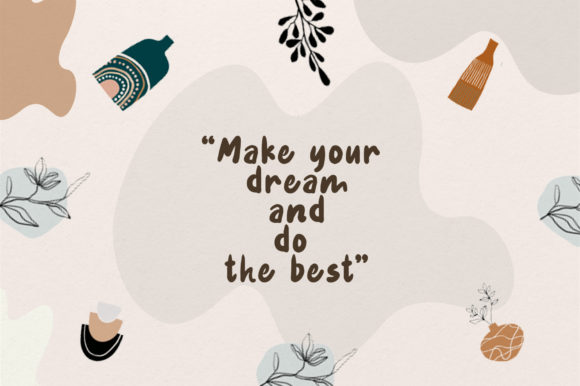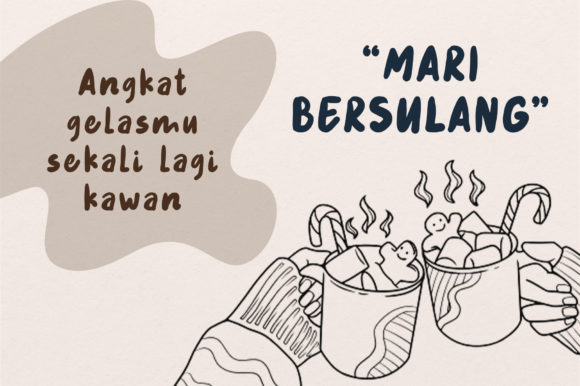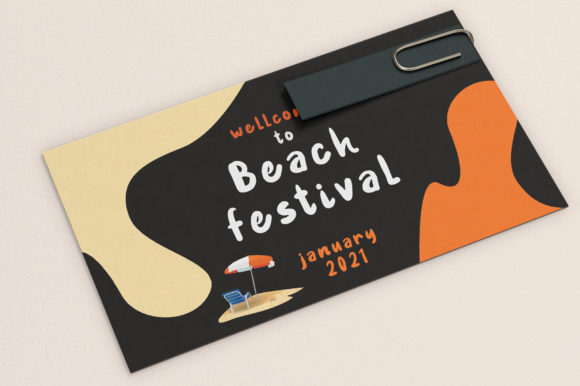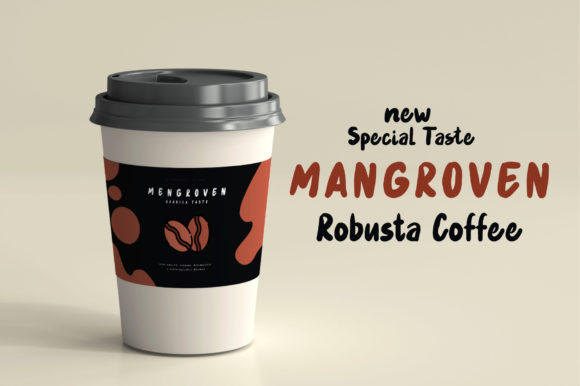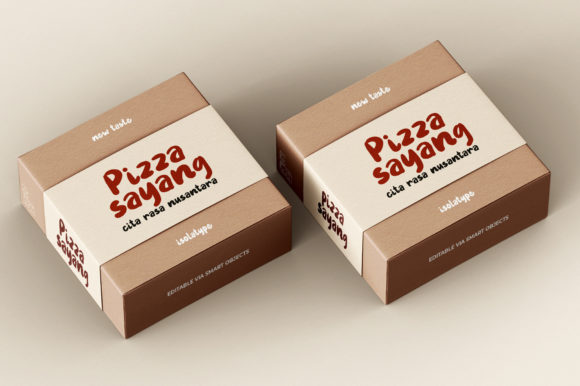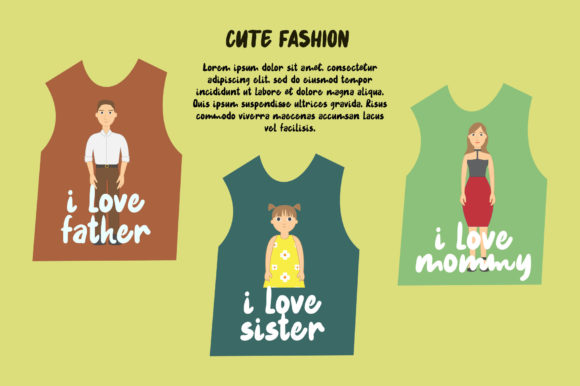
Introduction to Rampung Font
Have you ever been rummaging through a dusty old chalkboard in a quaint schoolhouse, feeling inspired by the scribbled quotes and diagrams that bring back memories of a bygone era? That’s exactly the kind of feeling the Rampung Font aims to evoke in your designs. This charming, handwritten font is the perfect addition to any creative project, especially when paired with a transparent background to make it pop.
Key Features of Rampung Font
- Rampung Font is a high-quality design resource suitable for creative projects, offering a unique and modern aesthetic.
- The font size is 1,048 glyphs, covering a wide range of languages and characters.
- One of the unique characteristics of Rampung Font is its versatility, making it an excellent choice for various design projects, from logos to branding materials.
- This font family consists of multiple styles, including bold, italic, and regular, providing designers with ample options to suit their creative needs.
Honest Review: Rampung Font
I recently had the chance to experiment with the Rampung Font, and I must say it’s been a delight. This free download is a fantastic addition to any designer’s toolkit, offering a unique and modern aesthetic that’s perfect for creative projects.
- ✨ High-quality design: The Rampung Font boasts crisp, clean lines and a beautiful, modern feel that’s perfect for showcasing your work.
- ✨ Transparent background: The font’s transparent background makes it incredibly versatile, allowing you to easily integrate it into your designs without worrying about background distractions.
- ✨ Easy to use: With a wide range of weights and styles, the Rampung Font is incredibly easy to use, making it perfect for designers of all levels.
While the Rampung Font is an excellent addition to any design resource, there are a few limitations to consider:
- ⚠️ Limited language support: As with many fonts, the Rampung Font’s language support is limited, which may be a concern for designers working on international projects.
- ⚠️ Not ideal for body text: While the Rampung Font is perfect for headings and titles, it may not be the best choice for body text due to its bold, modern style.
Overall, I’m thoroughly impressed with the Rampung Font and would highly recommend it to designers looking for a unique and high-quality design resource.
Rampung Font
The Rampung Font is a high-quality, free download design resource perfect for creative projects that require a unique and elegant touch. With its transparent background, it’s ideal for overlaying on images or videos.
For the most out of the Rampung Font, try combining it with other design resources, such as images or vectors, to create a unique and eye-catching visual effect.
The Rampung Font is commonly used for:
- Business cards and brochures.
- Social media graphics and advertisements.